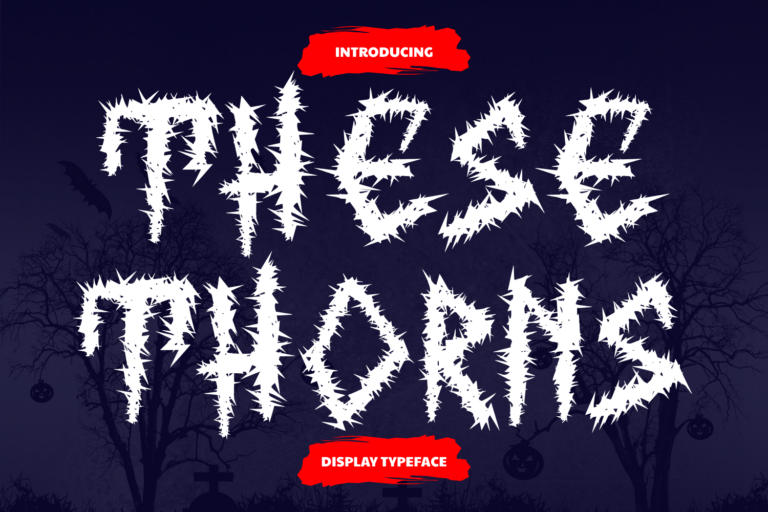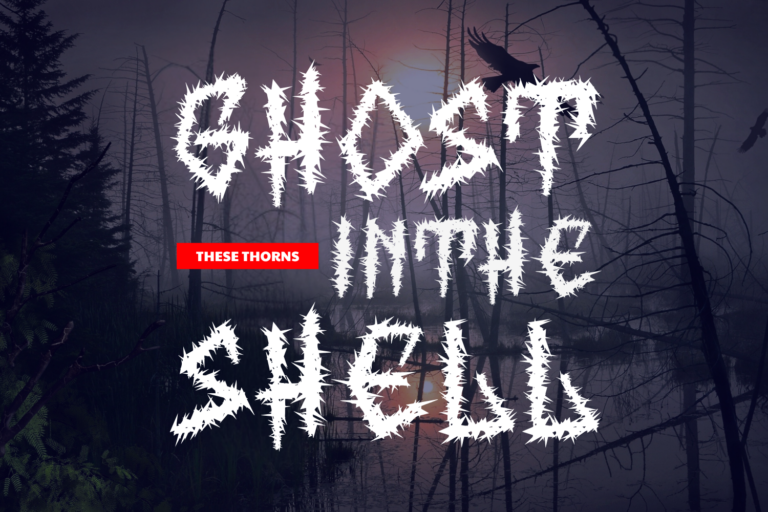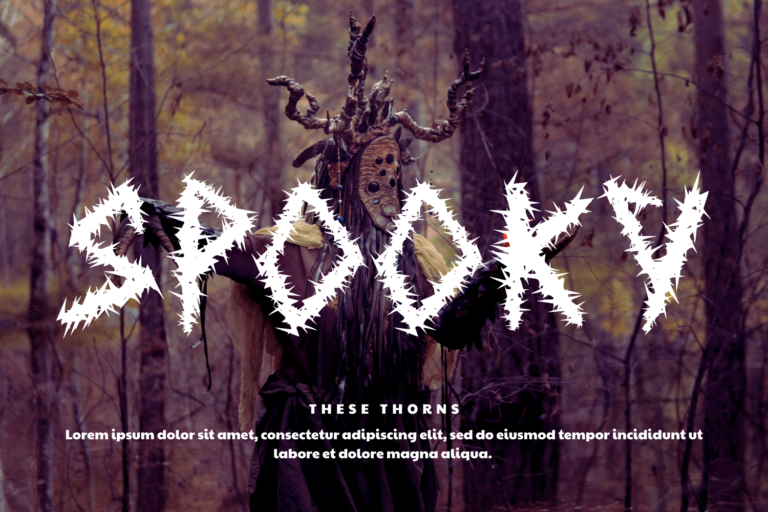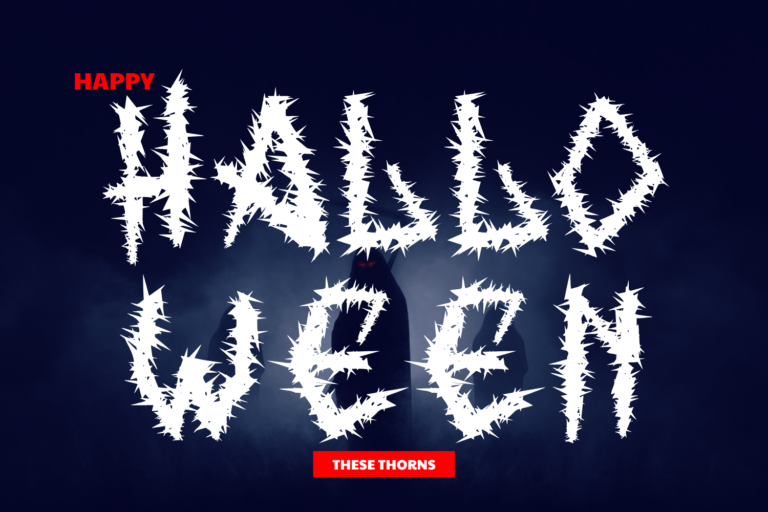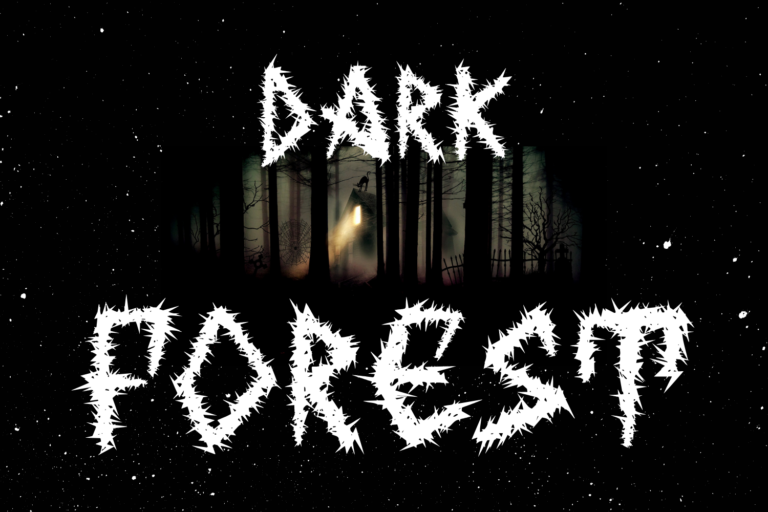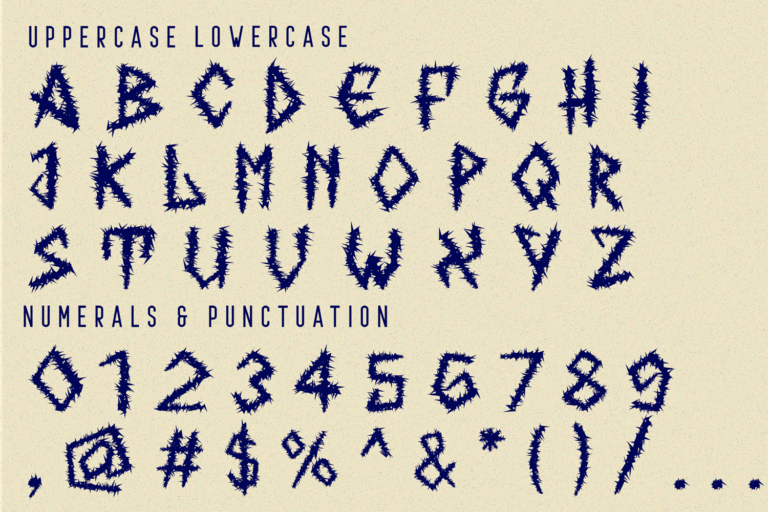
These Thorns – Horror Font – Horror Thorns Typeface, a bold and terrifying decorative font crafted entirely from thorny, jagged shapes. Each character looks like it’s been formed from tangled brambles or razor-sharp vines, giving your text a fierce, haunting edge. Perfect for Halloween posters, horror movie titles, game logos, dark fantasy book covers, or any project that craves a twisted, sinister vibe. This typeface turns every word into a visual scream.
• Ideal for spooky, dramatic, or fantasy-themed designs
These Thorns – Horror Font